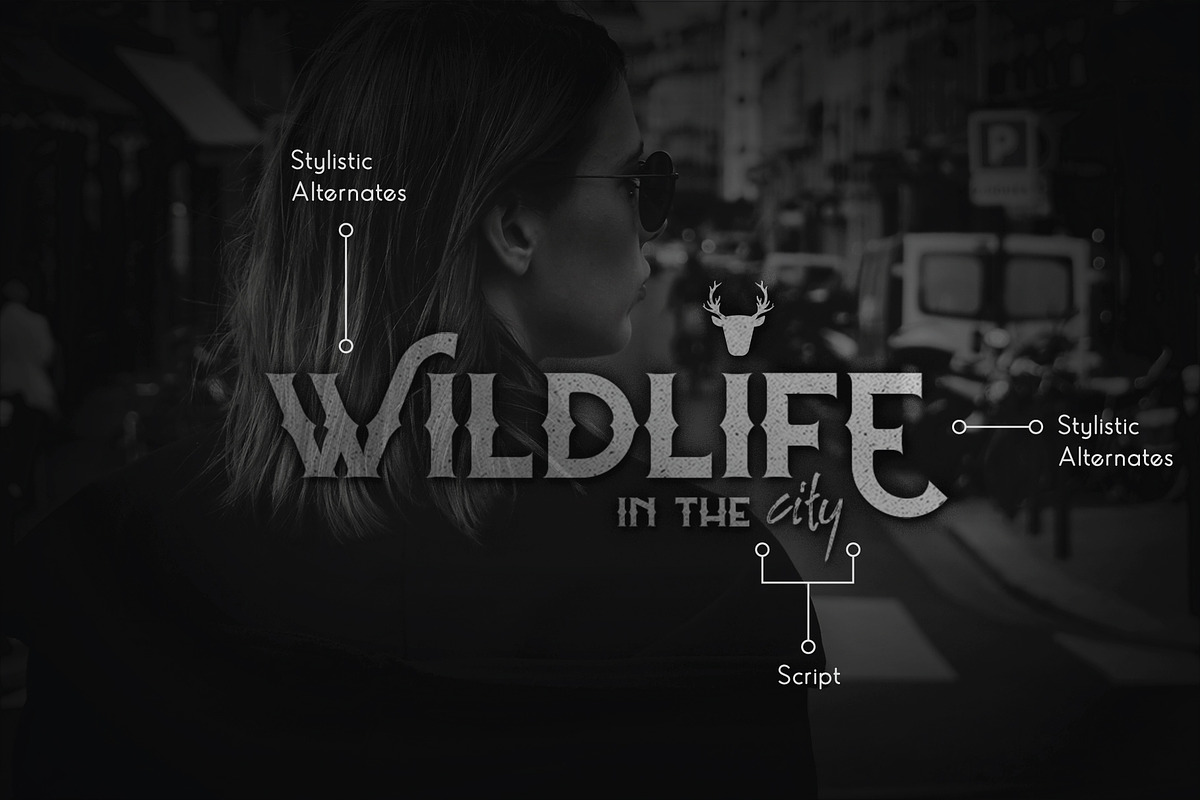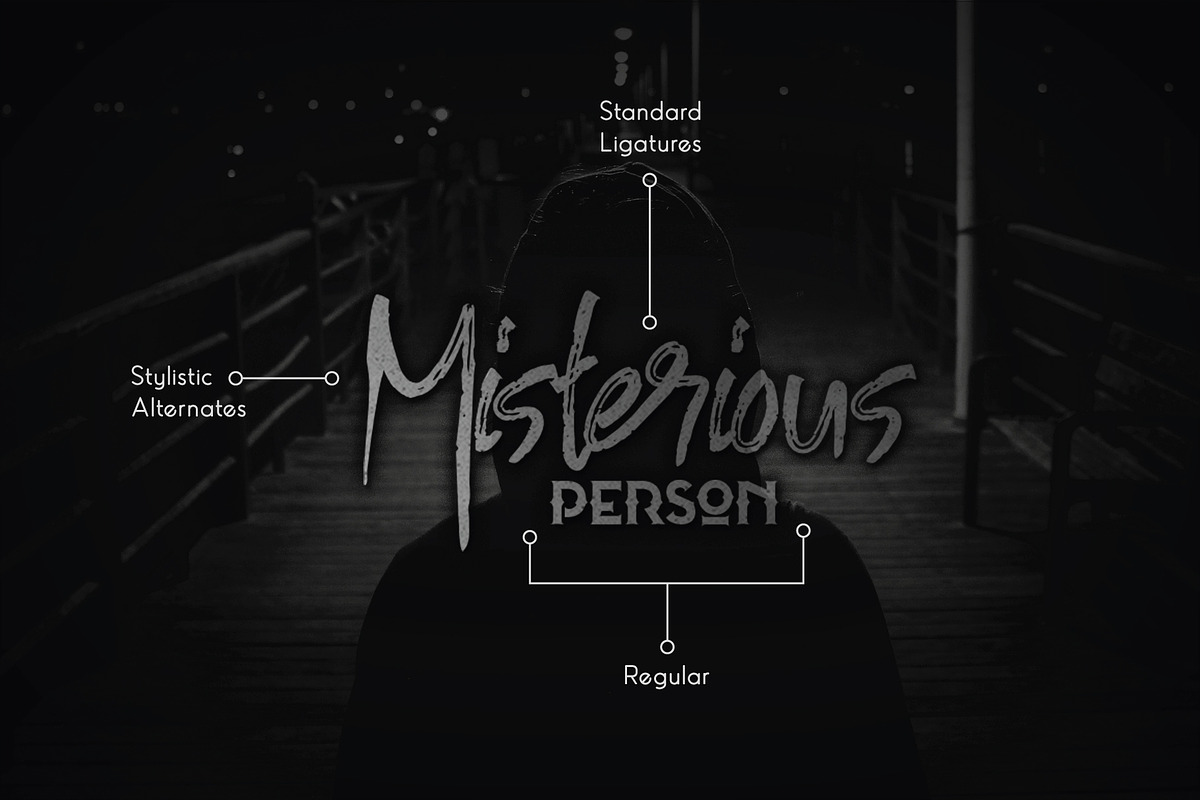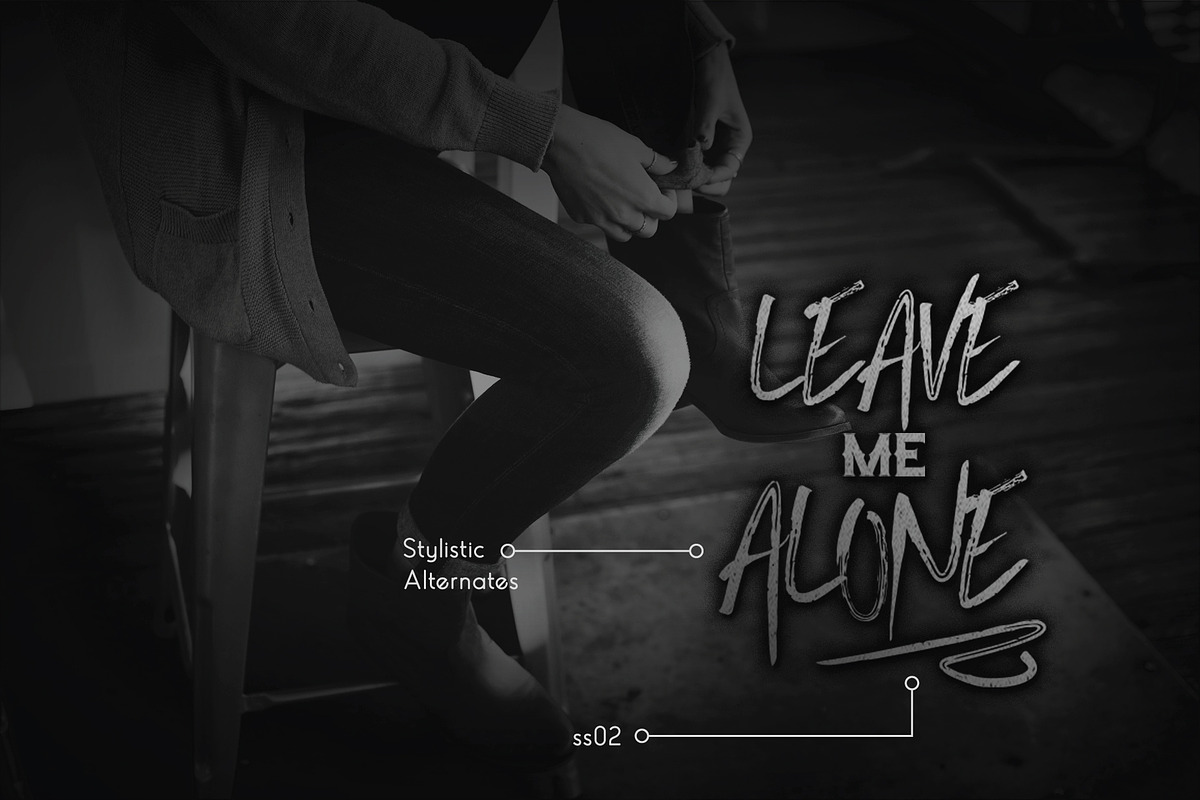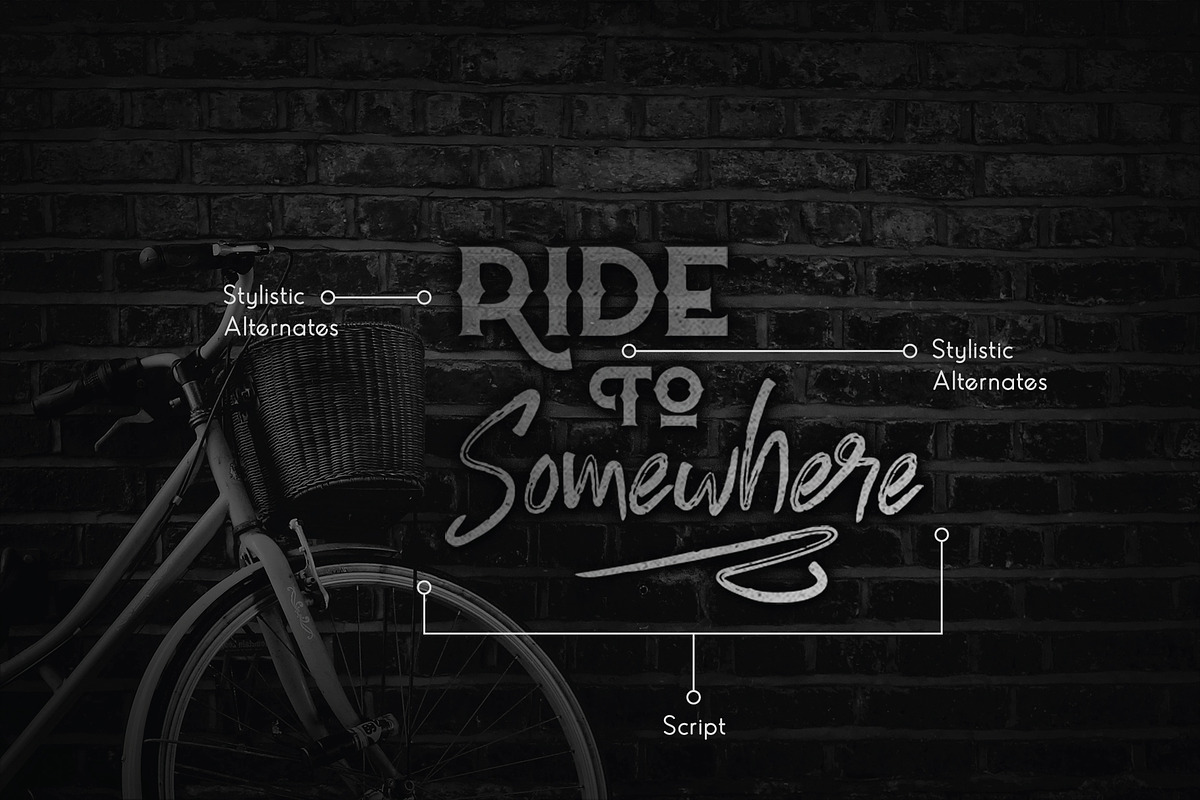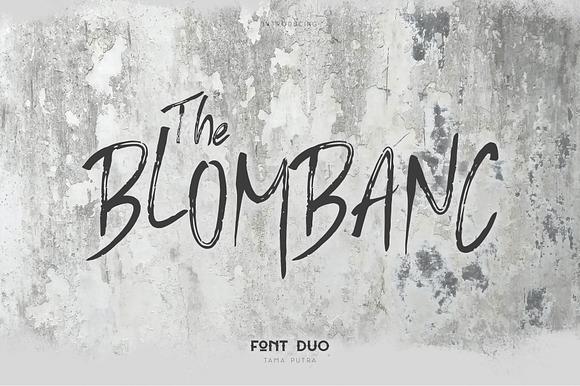
Blombanc Font
Blombanc Font Duo is a display and handwritten typeface. It is suitable for any design needs, branding, cover title, t-shirts, posters and more.
It includes multi-lingual and currency support, numerals, and punctuations. It comes comes with stylistic alternates, ss01, ss02.
Character Set A-Z (Uppercase & Lowercase)
Accents (Multilingual characters)
This typeface can be put to many uses:
Blombanc Font Duo is suitable font for creating beautiful things and many creative work.
- It comes comes with stylistic alternates, ss01, ss02.
- Character Set A-Z (Uppercase & Lowercase)
- ss01, ss02
- Standard Ligatures
- Blombanc Script Regular
- Blombanc Regular
Blombanc Font by Vacatype Co. fits naturally into Branding, posters, packaging, typography.